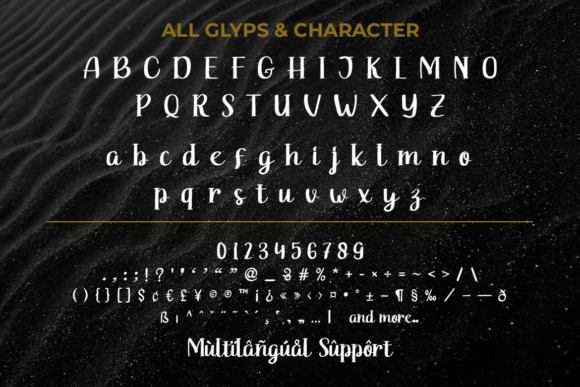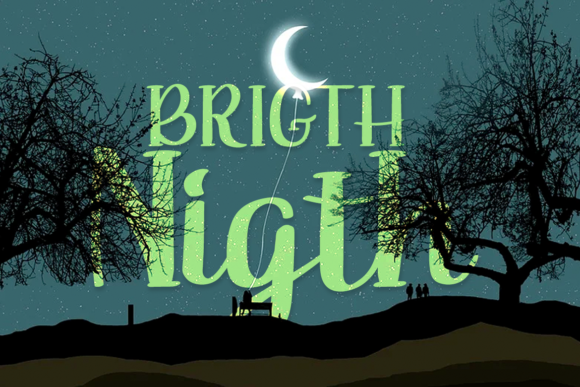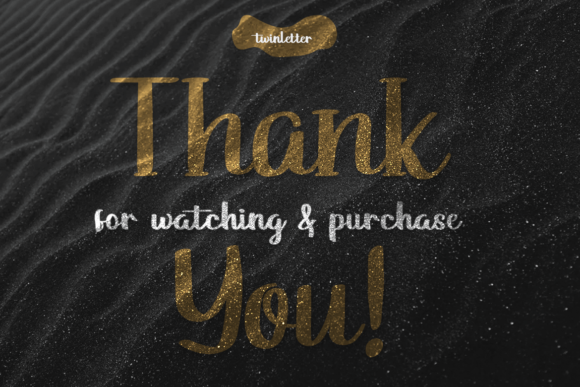
Introduction to Rasia Font
As a designer, have you ever found yourself stuck in a creative rut, searching for the perfect font to elevate your next project? I know I have. It was during one of those moments that I stumbled upon the beautiful Rasia Font – a sweet and flowing handwritten font that has since become a staple in my design arsenal.
Rasia Font is more than just a pretty face; it’s a valuable resource for designers looking to add a touch of elegance and sophistication to their creative projects. With its incredibly versatile style, this font is perfect for crafting gorgeous wedding invitations, beautiful stationary art, eye-catching social media posts, and much more. Its high-quality design and transparent background make it a breeze to work with, and the best part? It’s available for free download, making it an excellent design resource for designers of all levels.
Key Features of Rasia Font
- High-quality design with a transparent background, perfect for creative projects.
- Supports a wide range of languages, making it a versatile choice for multilingual creative projects.
- Features a clean and modern design aesthetic, ideal for use in logos, typography, and other graphic design elements.
Honest Review: Rasia Font
I recently stumbled upon the Rasia Font, and I must say it’s been a game-changer for my creative projects. The high-quality design and transparent background make it perfect for a wide range of applications.
- ✨ Unique and stylish design: The Rasia Font has a distinctive look that sets it apart from other fonts. Its elegant curves and clean lines make it perfect for creative projects that require a touch of sophistication.
While the Rasia Font excels in many areas, there are a few limitations to be aware of:
- ⚠️ Limited character set: Unfortunately, the Rasia Font only includes a limited character set, which may not be suitable for projects that require a wide range of characters.
- ⚠️ Not suitable for small text: Due to its elegant design, the Rasia Font may not be the best choice for small text sizes. It can become difficult to read at smaller sizes.
Overall, I’m thoroughly impressed with the Rasia Font. Its high-quality design and free download make it an excellent design resource for anyone looking to elevate their creative projects. While it may have some limitations, I believe the benefits far outweigh the drawbacks.
Tips for Getting the Most Out of Rasia Font
Use Rasia Font in high-quality designs with transparent backgrounds for a unique and creative project. You can also experiment with different font sizes and styles to get the most out of this versatile font.
Rasia Font is commonly used in creative projects, such as logos, brochures, and social media graphics. Its high-quality design and transparent background make it an ideal choice for designers looking for a free and versatile font resource.
The Rasia Font is designed to be scalable and suitable for high-resolution designs. It features a high level of detail and clarity, making it ideal for use in a variety of creative projects, from business cards to billboards. The font is available in a range of sizes, including 72 dpi, 144 dpi, and 300 dpi, ensuring that it looks great in any resolution.